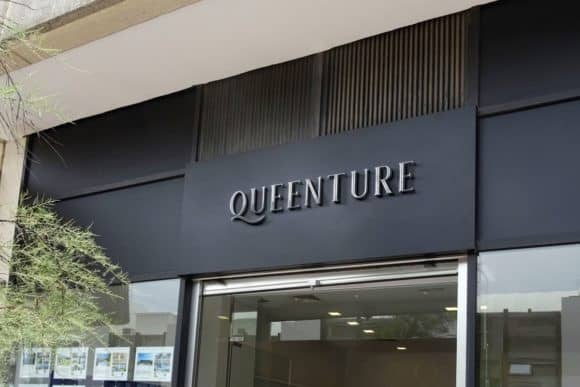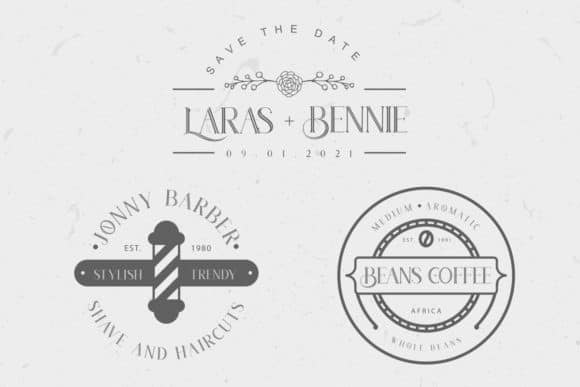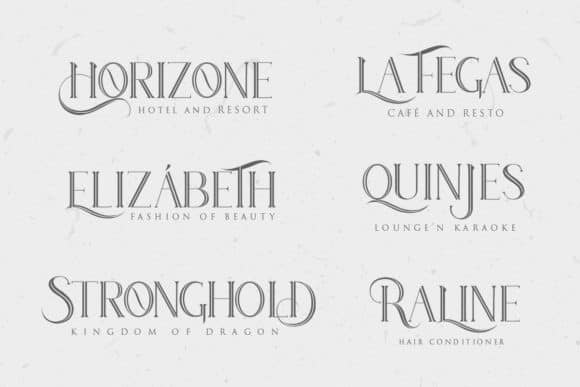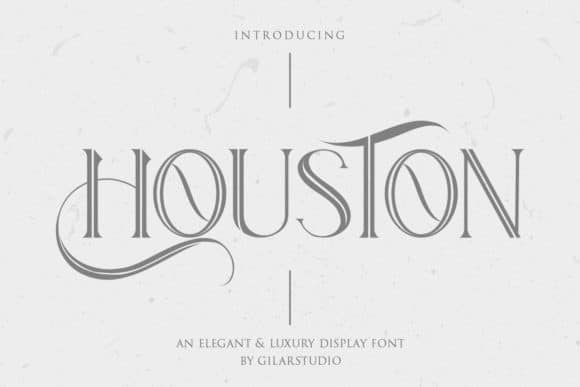
Houston Display Font
Introducing Houston Display Font is an incredibly elegant and unique display serif typeface. Made from font designer named Gilar Studio. Fall in love with its incredibly versatile style and use it to create spectacular designs! Love Fairy is perfectly suited to signature, wedding, social media, stationery, logo, typography quotes, magazine or book cover, website header, clothing, branding, packaging design and more.